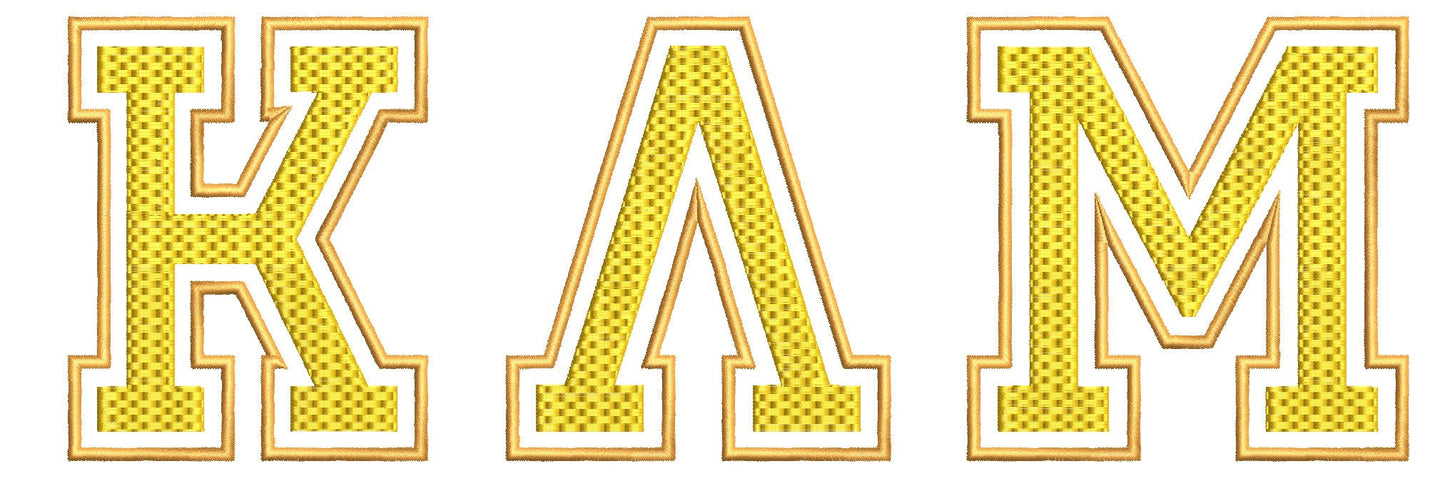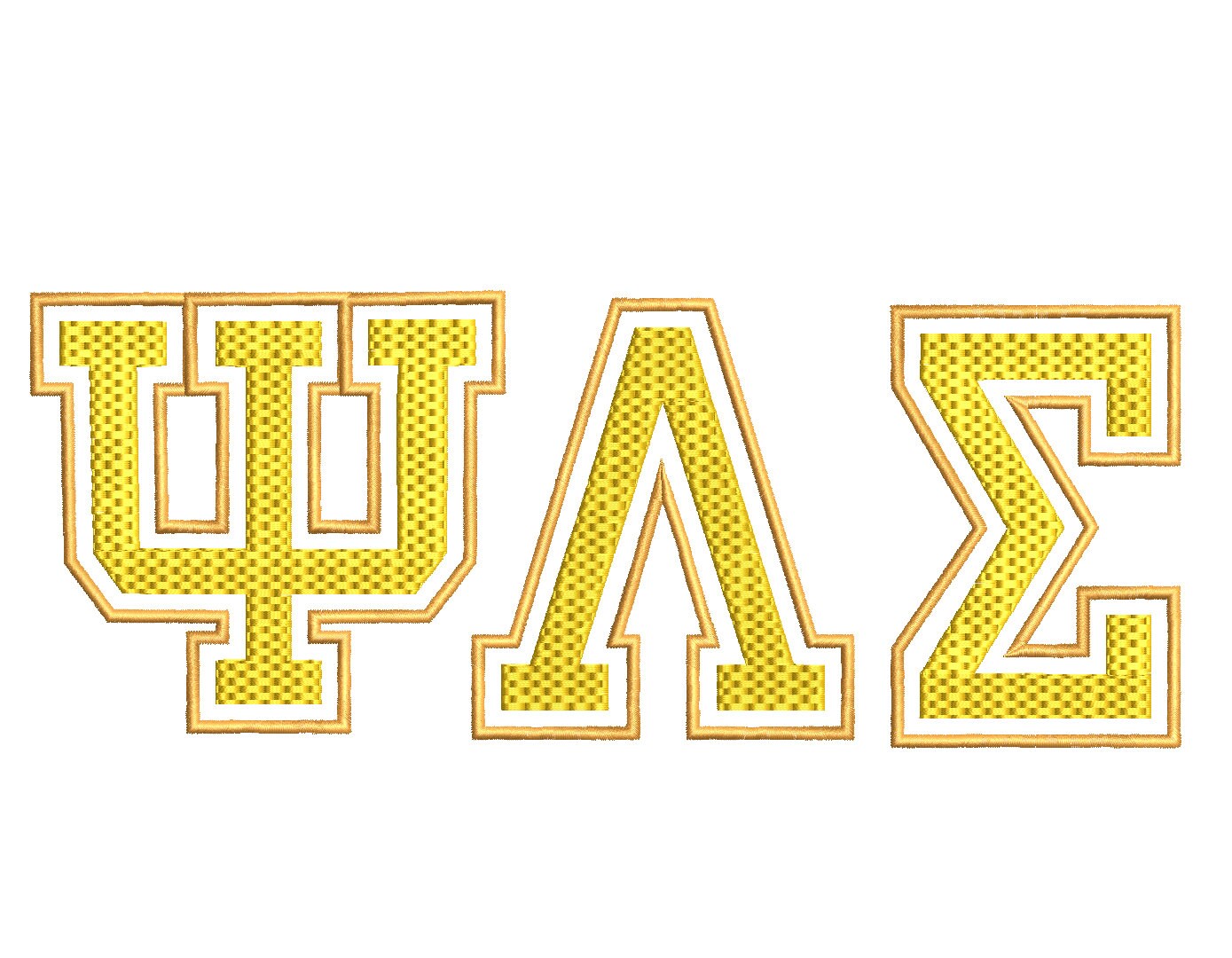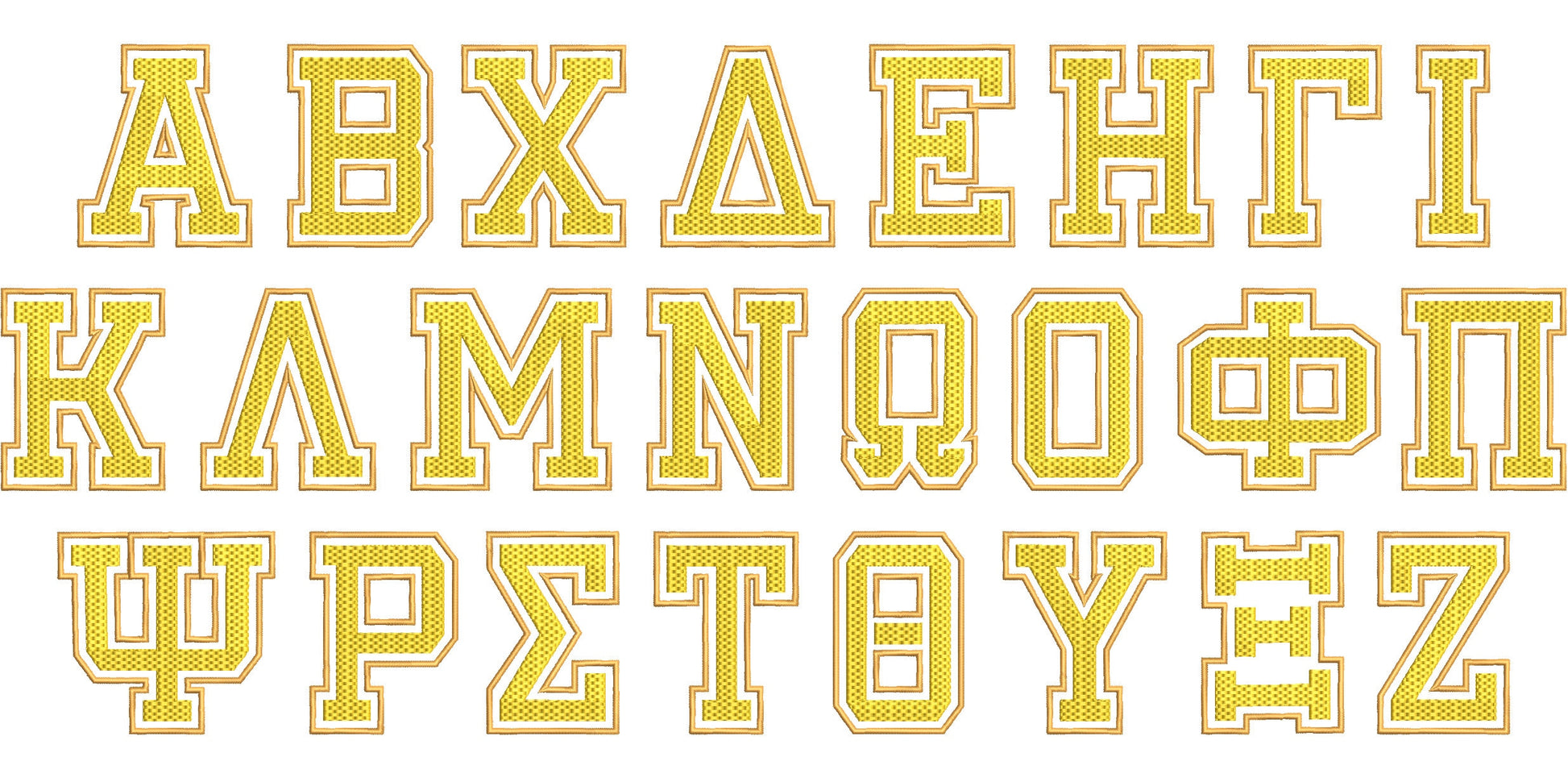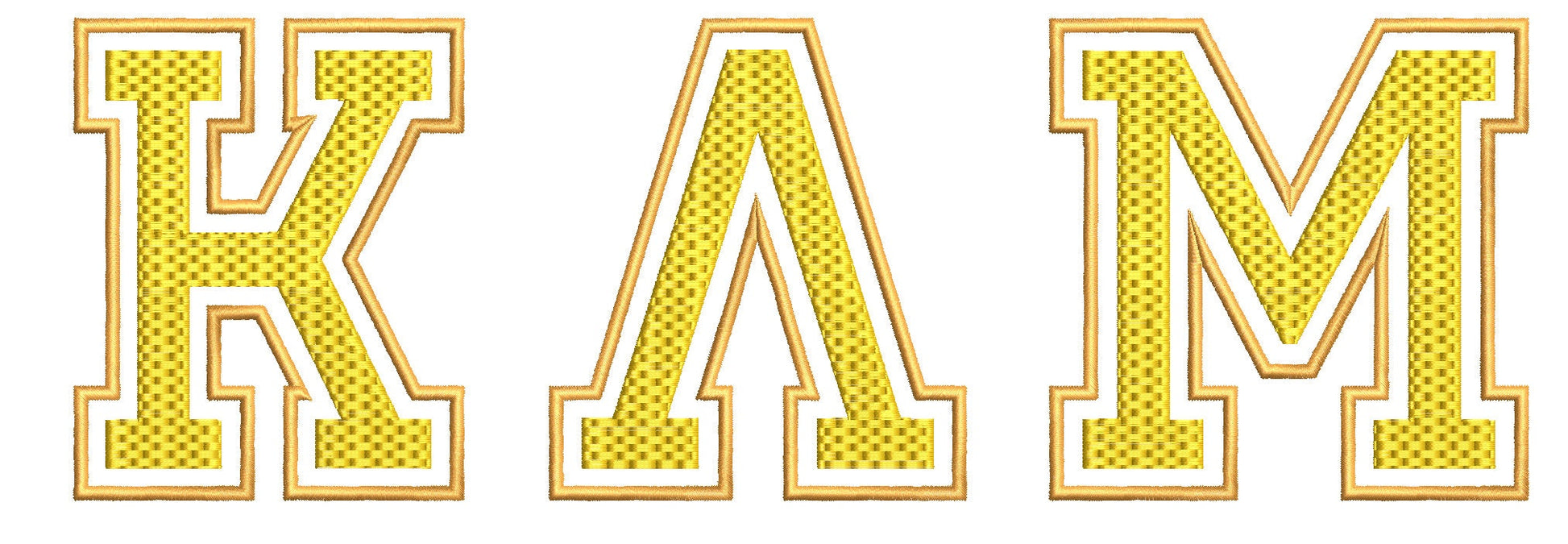
Or click to open the linkGreek letters with a double outline and a waffle pattern inside. Made for sorority and fraternity shirts, jackets and bags.
All 24 Greek letters plus numbers 0 to 9, in five sizes: 4, 4.5, 5, 5.5 and 6 inches. Double outline with a waffle fill.